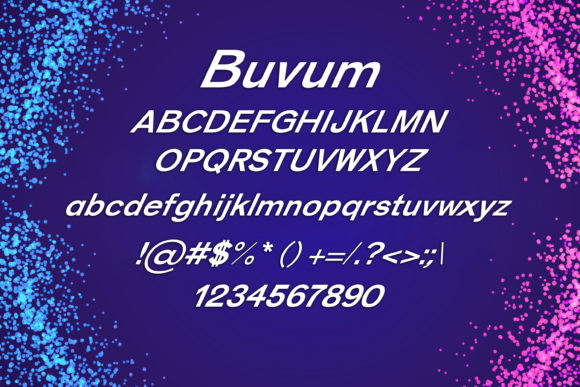
Introducing the Perfect Typography for Modern Designs
Remember that moment when you were brainstorming a new project and the words just didn’t seem to come together? You stared at your blank canvas, searching for the perfect font to bring your vision to life. That’s where the Buvum Font comes in – a game-changing sans serif font inspired by traditional sign painting with a modern twist.
Buvum Font is designed to be clean, minimal, and versatile, making it perfect for modern and contemporary designs such as logos, headlines, business cards, t-shirts, and much more. Whether you’re a seasoned designer or just starting out, this typeface is a valuable addition to your toolkit, allowing you to create professional and eye-catching designs with ease.
Buvum Font Key Features
- Font Family: Buvum Font is a sans-serif font family designed for modern and minimalist designs.
- Character Set: Includes a wide range of characters, including Latin, Cyrillic, and Greek alphabets, making it suitable for multilingual designs.
- Unique Characteristics: Buvum Font features a clean and geometric design, with a unique blend of modern and vintage elements, making it perfect for creating a distinctive visual identity.
Buvum Font Review
Overall, I think Buvum Font is a decent choice for designers looking for a unique, modern font. Here are some things that work well: ✨
- Distinctive Design**: Buvum Font has a distinct, futuristic feel to it, which makes it perfect for designs that need a bit of edge.
- High Legibility**: The font is highly legible, even at smaller sizes, making it suitable for a wide range of applications.
- Good Font Pairing Options**: Buvum Font can be paired with a variety of other fonts to create visually appealing combinations.
- Limited Character Set**: The font’s character set is not comprehensive, which may cause issues for designers who need to support languages with a wide range of characters.
- Not Ideal for Body Text**: While Buvum Font is great for headlines and titles, it’s not the best choice for body text due to its condensed letterforms.
Overall, I’d say Buvum Font is a solid choice for designers who want a unique, modern font for specific applications. However, it’s not a one-size-fits-all solution, and designers should carefully consider its limitations before making a decision.
Buvum Font: A Practical Application Guide
Tip: Use the Buvum Font to create visually appealing headings and titles in your designs.
Tip: Use the Buvum Font to add a unique touch to your graphics and illustrations.
Tip: Use the Buvum Font to create visually appealing presentations and documents.
The Buvum Font is ideal for:
- Designing logos and branding materials.
- Creating eye-catching headings and titles.
- Adding a unique touch to graphics and illustrations.